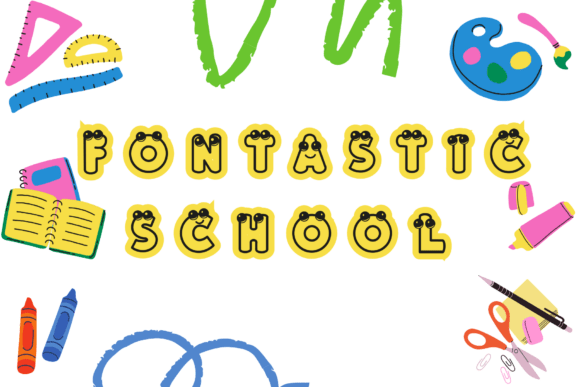
Introducing Fontastic School Font: The Playful Decorative Font for Young Learners
In the world of typography, fonts play a crucial role in conveying messages, expressing emotions, and capturing attention. When it comes to creating educational materials, children’s projects, and classroom posters, the right font can make all the difference. That’s where Fontastic School Font comes in – a playful decorative font designed to bring joy, imagination, and personality to every letter.
The Unique Features of Fontastic School Font
Fontastic School Font is more than just a font – it’s a classroom full of characters! Each character in this font comes to life with charming cartoon-style eyes that turn your text into a lively, expressive visual element. This unique feature is perfect for grabbing the attention of young learners and creative minds alike. The bubbly structure and cheerful energy of this font make it tailor-made for children’s projects, educational materials, classroom posters, activity books, and anything that needs a fun, school-friendly vibe.
Key Features of Fontastic School Font:
- Playful Decorative Style: Fontastic School Font boasts a playful decorative style that adds a touch of whimsy to any text.
- Cartoon-Style Eyes: Each character features charming cartoon-style eyes that bring the font to life.
- Bubbly Structure: The font’s bubbly structure and cheerful energy make it perfect for children’s projects and educational materials.
- School-Friendly Vibe: Fontastic School Font is designed to create a fun and engaging atmosphere, making it ideal for classroom posters, activity books, and more.
The Benefits of Using Fontastic School Font
Using Fontastic School Font in your educational materials, children’s projects, and classroom posters can have a significant impact on young learners. Here are some benefits of using this font:
The Power of Playful Typography:
- Engages Young Learners: Fontastic School Font’s playful style and charming cartoon-style eyes capture the attention of young learners, making learning more engaging and fun.
- Encourages Creativity: The font’s imaginative and expressive design encourages creativity and self-expression in children.
- Creates a Positive Learning Environment: Fontastic School Font helps create a positive and welcoming learning environment, making children feel comfortable and excited about learning.
Using Fontastic School Font in Educational Materials
Fontastic School Font is perfect for a wide range of educational materials, including:
Ideas for Using Fontastic School Font:
- Classroom Posters: Create eye-catching posters that grab the attention of young learners and make learning fun.
- Activity Books: Use Fontastic School Font to create engaging activity books that encourage creativity and self-expression.
- Educational Worksheets: Add a touch of whimsy to educational worksheets and make learning more enjoyable for children.
- Children’s Projects: Use Fontastic School Font to create fun and imaginative projects that showcase children’s creativity and talent.
Tips for Getting the Most Out of Fontastic School Font
To get the most out of Fontastic School Font, here are some tips:
Tips for Using Fontastic School Font:
- Experiment with Colors: Try out different colors and combinations to add an extra layer of fun and creativity to your text.
- Mix and Match: Combine Fontastic School Font with other fonts to create a unique and visually appealing design.
- Use it Sparingly: Use Fontastic School Font sparingly to add emphasis and create visual interest in your text.
Fontastic School Font is a playful decorative font that brings joy, imagination, and personality to every letter. With its charming cartoon-style eyes, bubbly structure, and cheerful energy, this font is perfect for creating engaging educational materials, children’s projects, and classroom posters. By using Fontastic School Font, you can create a positive and welcoming learning environment that encourages creativity, self-expression, and a love for learning.